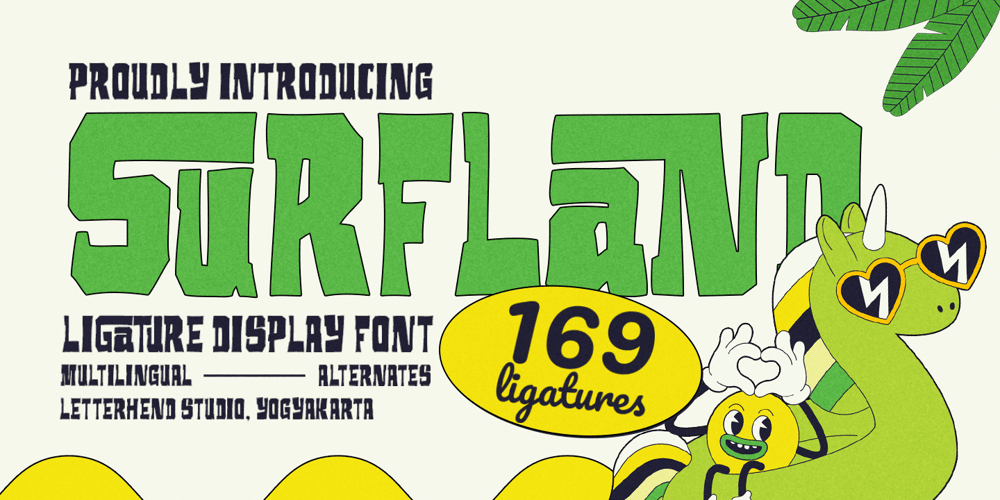
Surfland Font Family was designed by Hendry Juanda and published by Letterhend. Surfland contains 1 styles and family package options. Surfland is a ligature display font with a unique letterform. This font will bring you back to retro feel. This font is perfectly made to be applied especially in logos, and the other various formal forms such as invitations, labels, logos, magazines, books, greeting / wedding cards, packaging, fashion, make up, stationery, novels, labels or any type of advertising purpose.Features : Uppercase & lowercase Numbers and punctuation Alternates & Ligatures Multilingual PUA encoded Uppercase